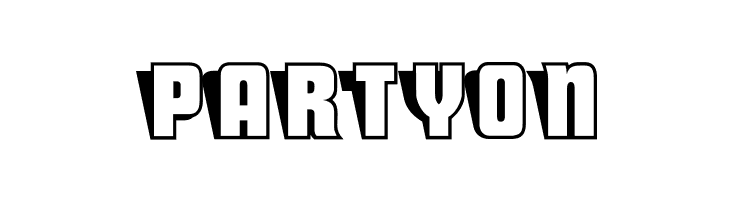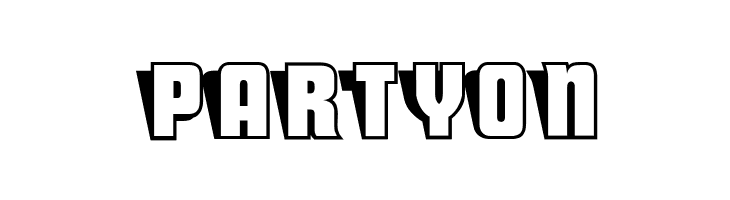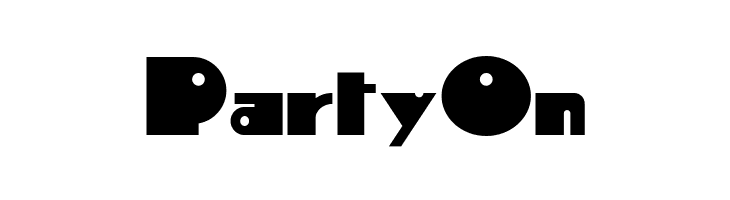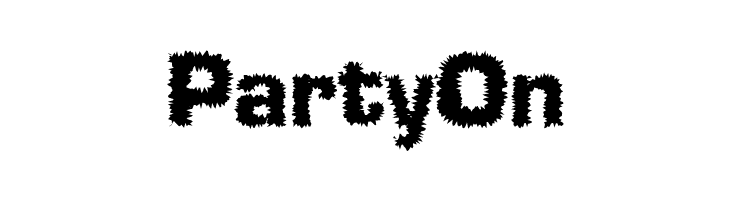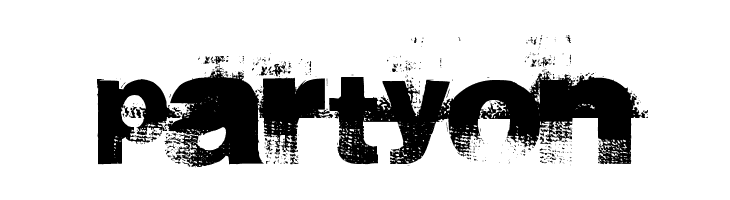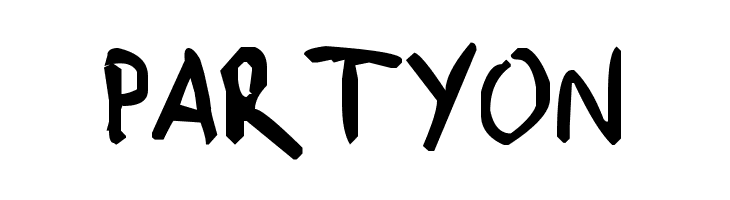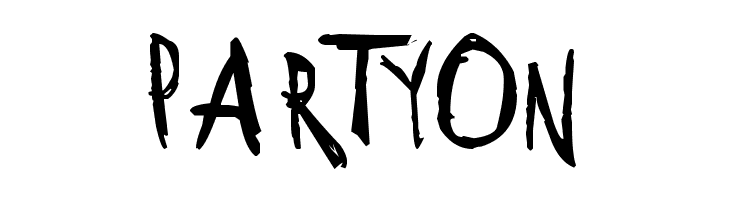
• Sho-Card Caps NF
A bold, three-dimensional font with vintage flair and strong shadow effects.
• Sho-CardCapsNF
A bold, three-dimensional font with a vintage, shadowed style.
• Shokkking Black
• Shokkking Medium
• shonen punk! custom
A bold, hand-drawn font with a rebellious, punk-inspired style.
• Shonen Punk! Custom Bold Bold
A bold, hand-drawn font with a rebellious, punk-inspired aesthetic.
• Shoujou Bold
A bold, geometric font with consistent stroke widths and a modern aesthetic.
• Sid The Kid NF
A bold, geometric font with playful and strong lines.
• sidewalk
A bold, distressed sans-serif font with a grunge texture.
• SidTheKidNF
A bold, geometric font with playful and striking characters.